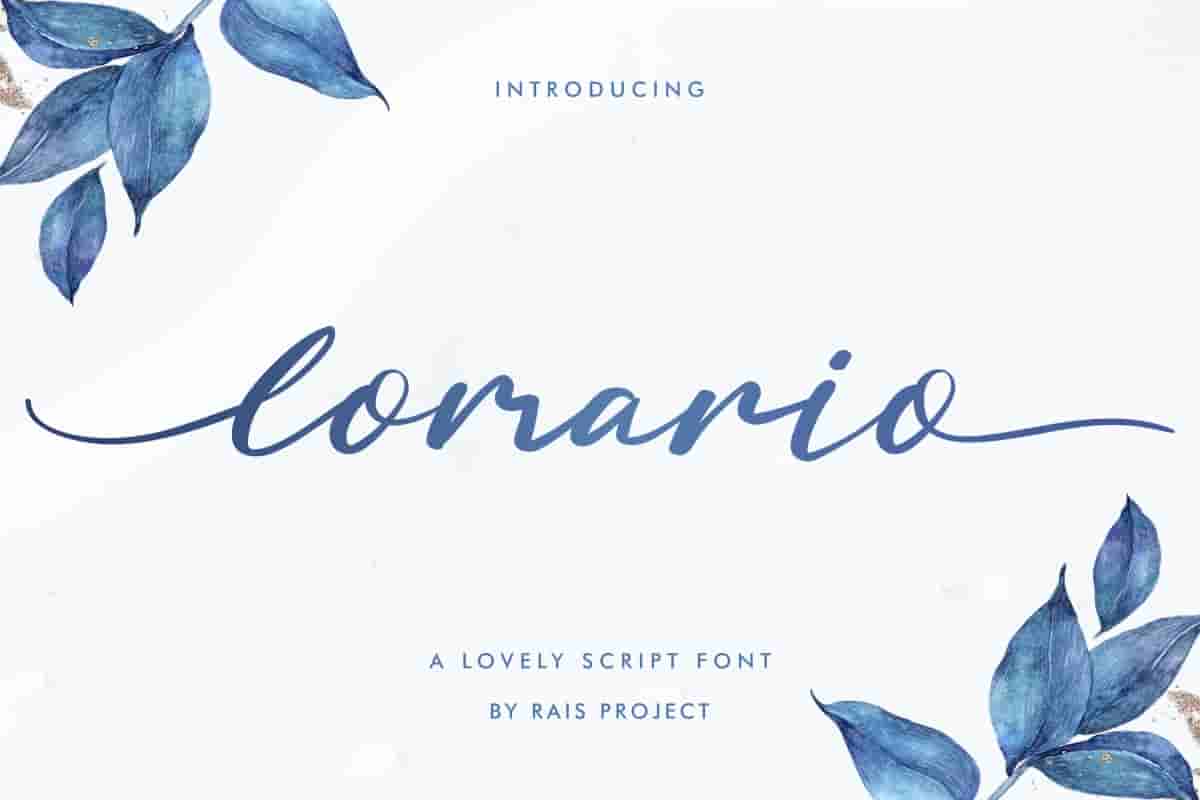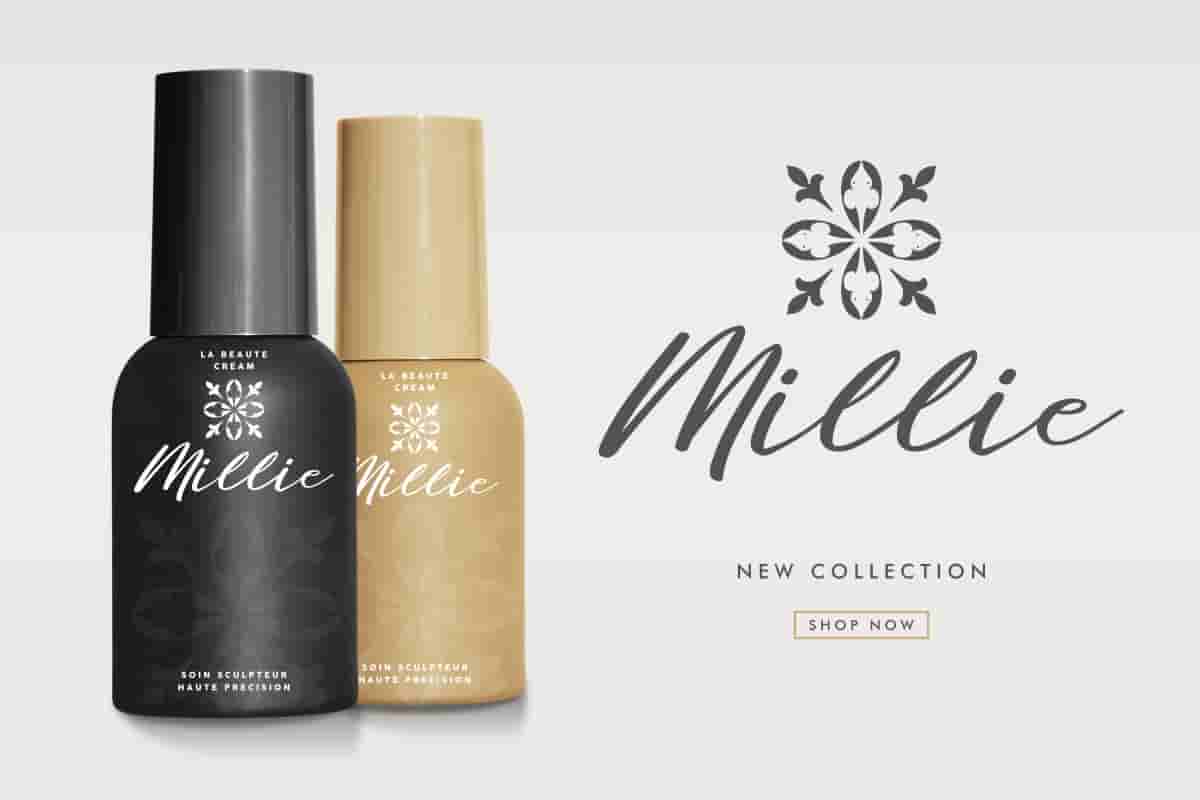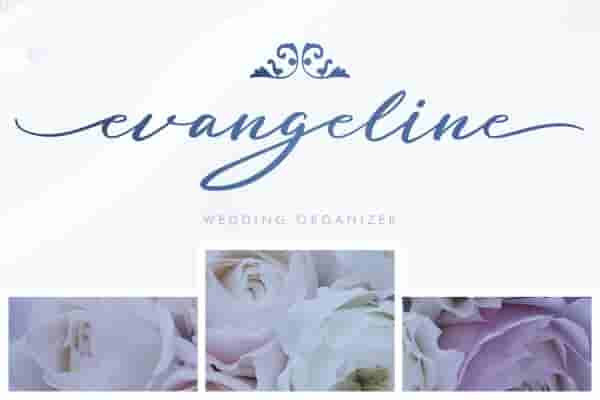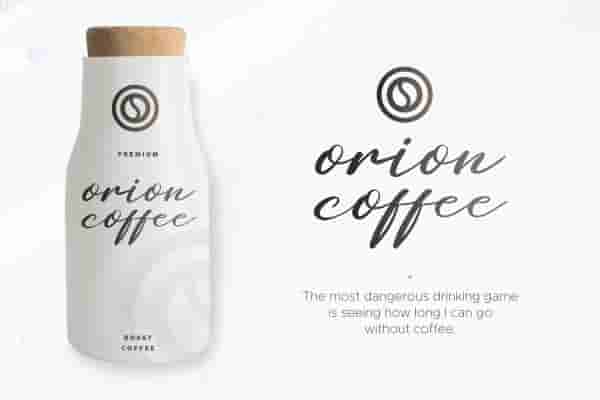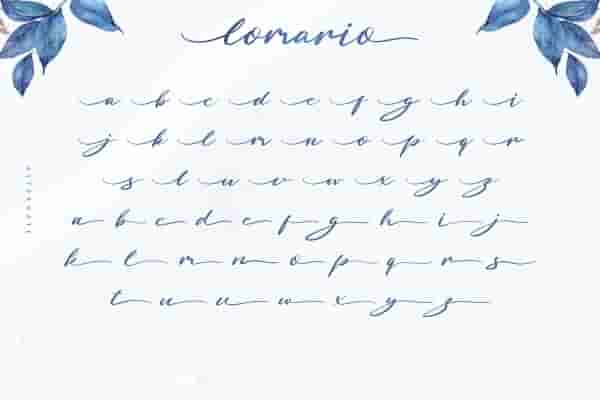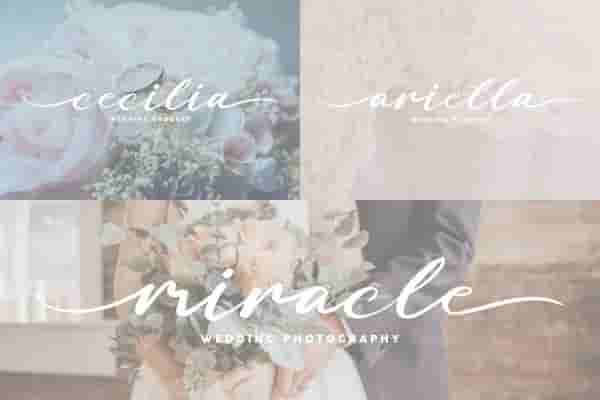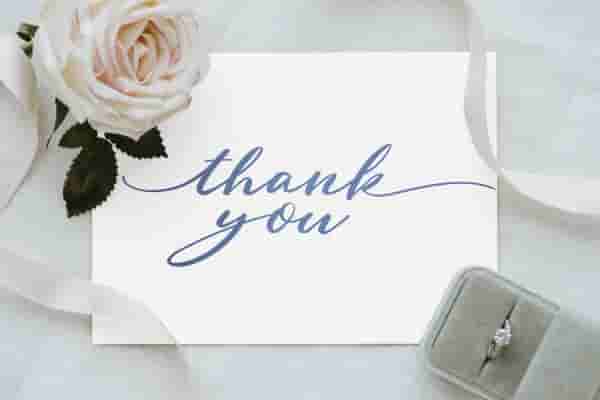
Lomario calligraphy Font
Lomario Font is a beautiful calligraphy script font with elegant style by RaisProject. It will be stunning for any your special projects including : weddings, promotion, events, branding, etc
Lomario Font  is a beautiful calligraphy script font with elegant style. You can see the demo font below. You can also input any word you want so you can see what it will look like :
Lomario Font made in Indonesia by Widi and Sarah for RaisProject. The font handcrafted With beautiful characters, it will be stunning for any your special projects including : weddings, promotion, events, branding, advertising, magazine, shopping, signage, invitation, stationery, social media posts, product packaging, product designs, label, photography, watermark or and any projects that need calligraphy handwriting style.